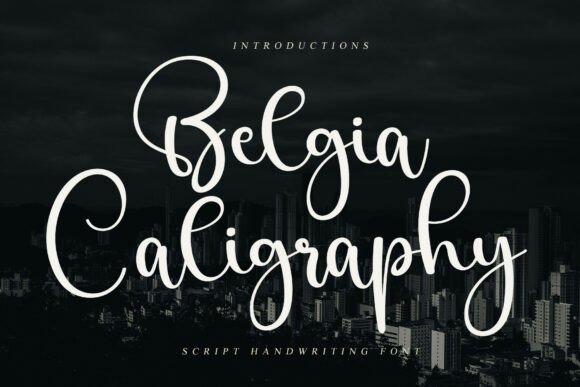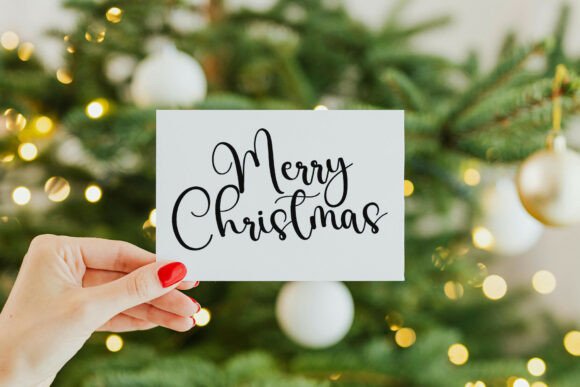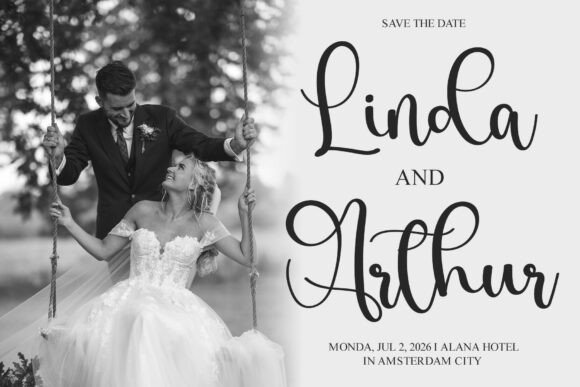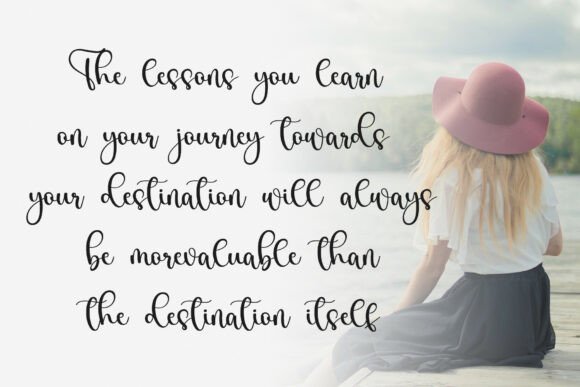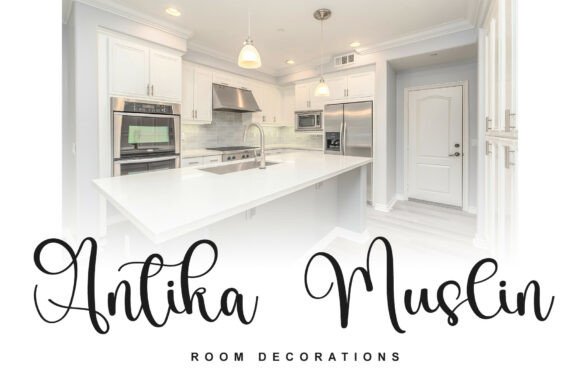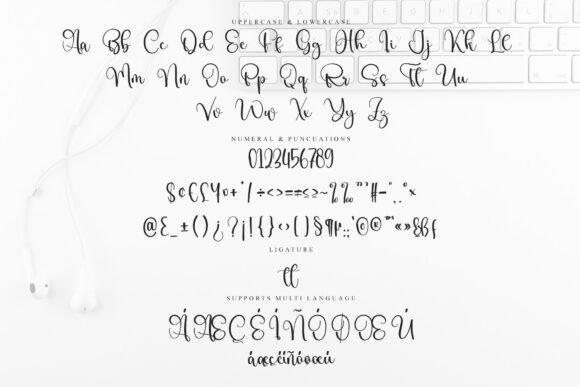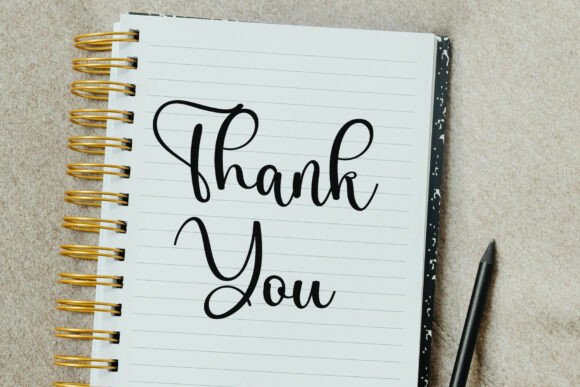
The Art of Beautiful Script: Discovering Belgia Calligraphy Font
Have you ever been in a moment where you stumble upon a beautiful handwritten note, a lovely logo, or a stunning typography, and you’re instantly inspired to create something special? For designers, these moments are a constant source of inspiration, and that’s exactly what the Belgia Calligraphy Font offers – a stylish and dainty script font that can elevate any project to the next level.
Perfect for logos, branding projects, labels, photography, watermarks, and special events, this versatile font is a must-have for designers who want to add a touch of elegance and sophistication to their work. With its PUA-encoded features, accessing all the glyphs and swashes is a breeze, making it an invaluable tool for creatives who want to unleash their full potential.
Belgia Calligraphy Font Key Features
- Unique Characteristics: Hand-drawn calligraphy style with elegant flourishes and subtle texture, adding a touch of sophistication to designs.
Belgia Calligraphy Font Review
Overall, I’m impressed with the Belgium Calligraphy Font. It’s a beautiful, elegant script font that’s perfect for creating a touch of sophistication in your designs. ✨ Here are some things that work well:
- Unique, artistic flair: This font adds a level of personality to your designs that’s hard to find with more generic fonts.
- High-quality design: The font is well-crafted and shows attention to detail, making it a pleasure to work with.
- Perfect for branding: With its elegant, refined look, this font is ideal for creating a strong brand identity.
- Limited versatility: While the font is beautiful, it may not be the best choice for projects that require a more straightforward, easy-to-read font.
- Potential for overuse: The font’s unique style can be so striking that it may overpower other design elements – use it sparingly to avoid overwhelming your audience.
Overall, I’m a fan of the Belgium Calligraphy Font. It’s a great choice for designers who want to add a touch of elegance to their projects, but it’s not a one-size-fits-all solution.
The Belgia Calligraphy Font is ideal for creating elegant and sophisticated designs, such as:
– Wedding invitations
– Birthday cards
– Restaurant menus
– Branding materials
For the best results, use the font in combination with other elegant fonts and design elements, such as floral patterns and soft colors.